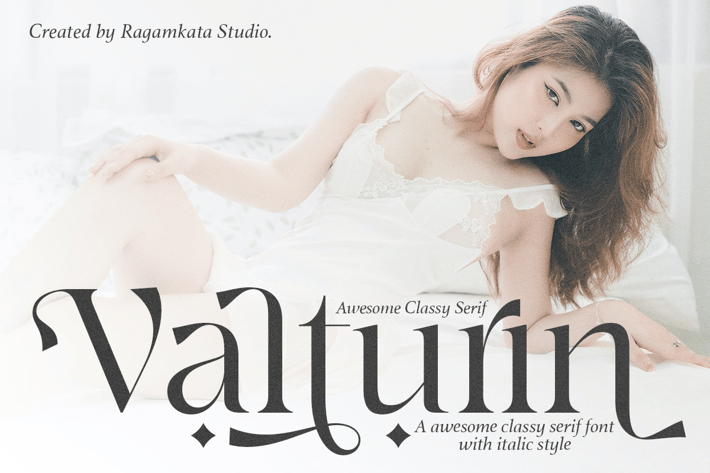
Valturin - Beautiful Minimalist Font
Valturin a very beautiful and minimalist appearance with an elegance touch to it. Valturin is a perfect typeface for a design to make it look luxurious and a very perfect font for a logo, classy editorial designs, fashion brand, promotion, and much more. Enhance your elegance with Valturin!